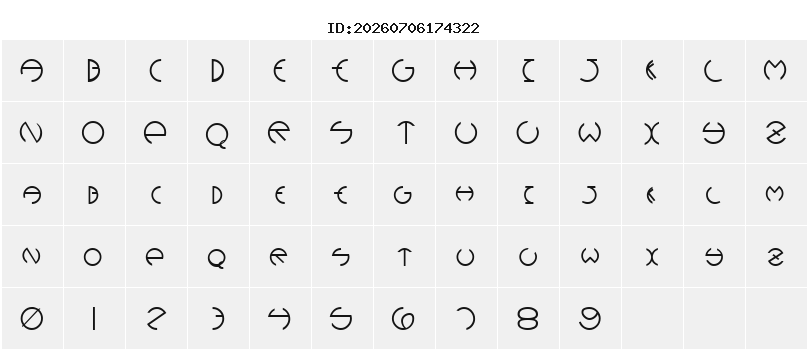
• Font Name: Devil
About Devil.ttf
Devil.ttf is a modern, elegant sans-serif font designed for ultimate readability and visual harmony. Perfect for branding, headlines, web design, and print materials.